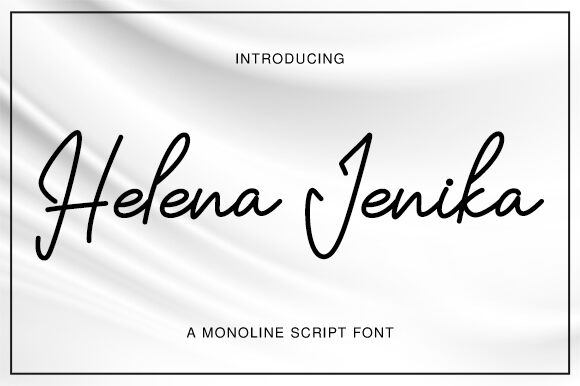
Helena Jenica, crafted by Nirmala Creative, embodies the charm of handwritten notes with its elegant and flowing characters. This font radiates a personal touch that feels bespoke and intimate, making it perfect for designs that aim to convey warmth and authenticity. Its light strokes give it a delicate and refined quality that adds a subtle sophistication to any project.
Ideal for invitations, branding, or editorial work where personality is key, Helena Jenica can infuse text with individuality while maintaining readability. With its handwritten style, this font is also suited for creative compositions seeking to evoke nostalgia or artisanal flair. Whether it's the centerpiece of a logo or the fine print in personalized stationery, Helena Jenica invites a sense of human touch into digital spaces.